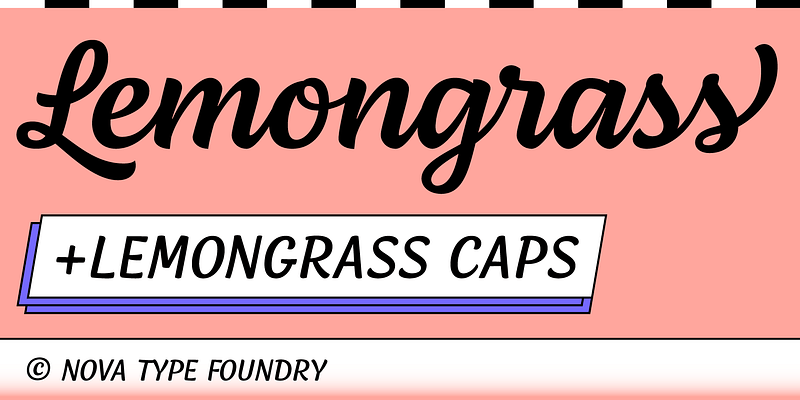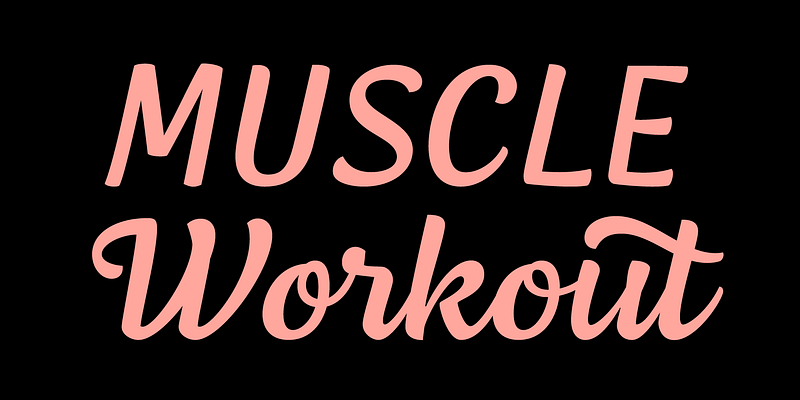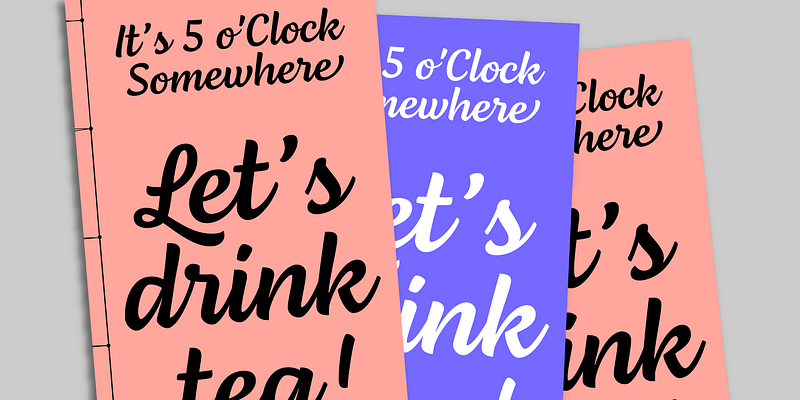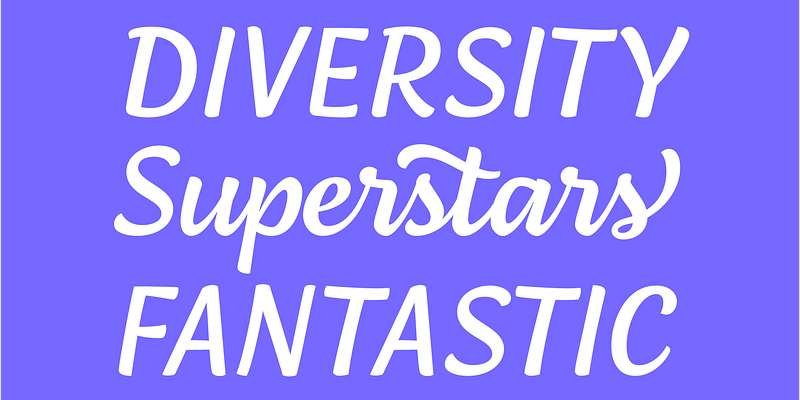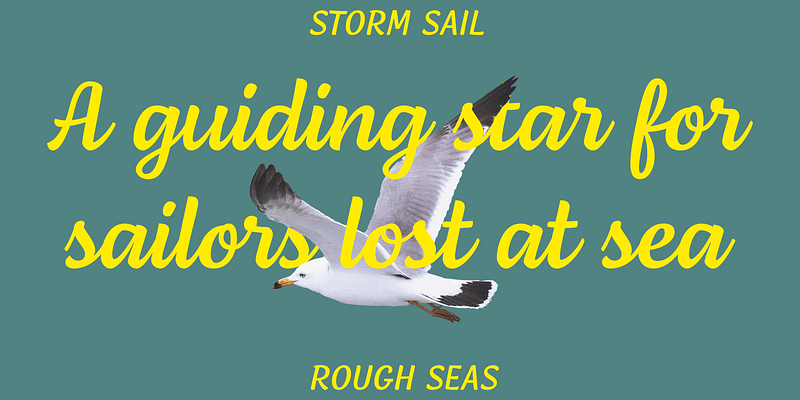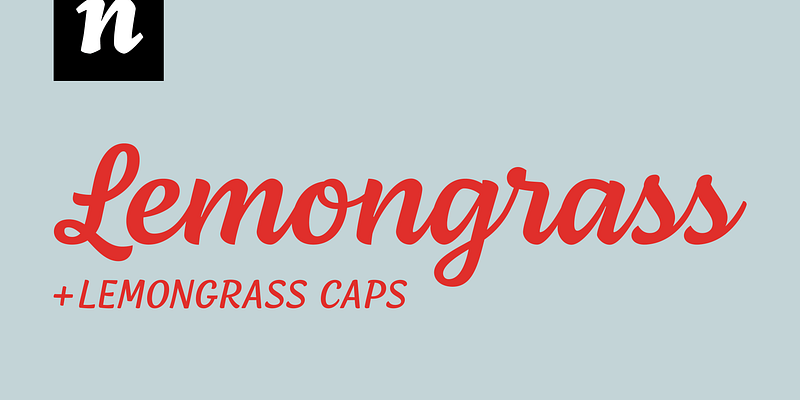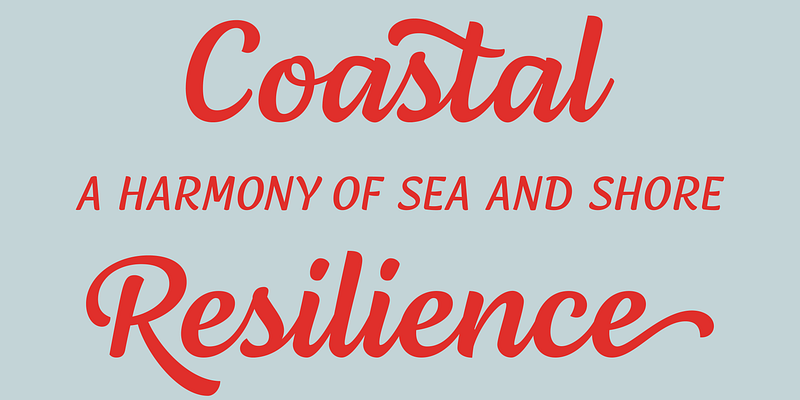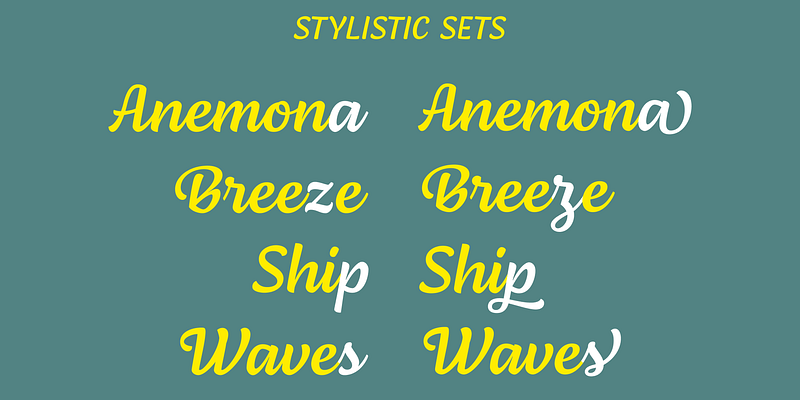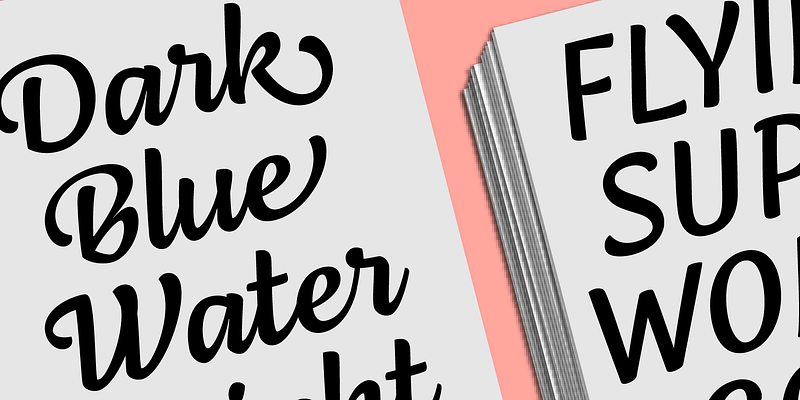
Lemongrass is a connected script typeface for display use. It was inspired by brush lettering and the ocean. It has low contrast and smooth connections. It can be used for branding and packaging where it will shine.